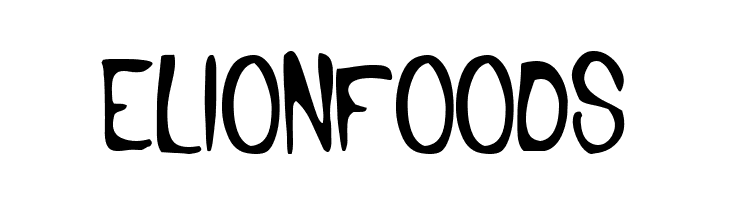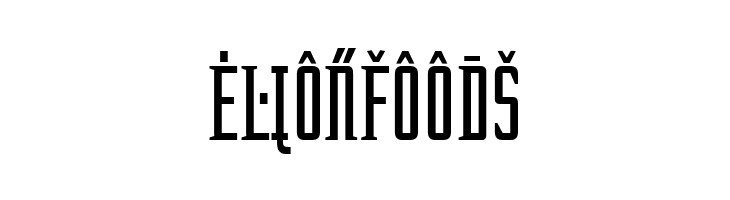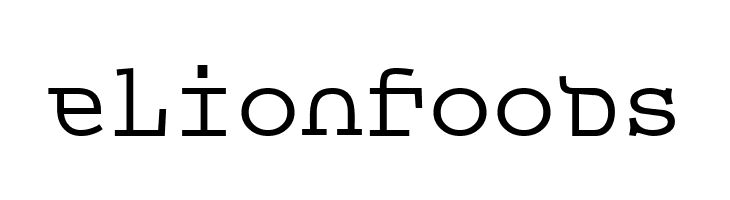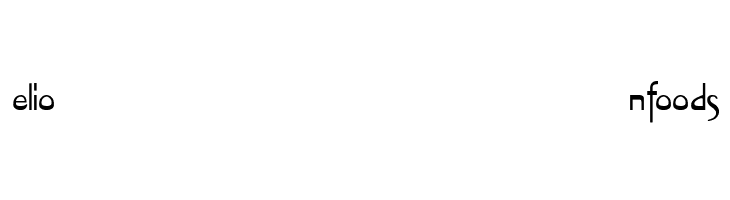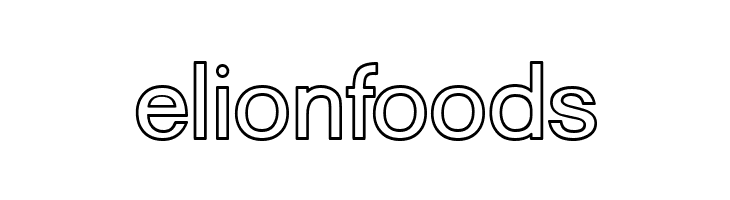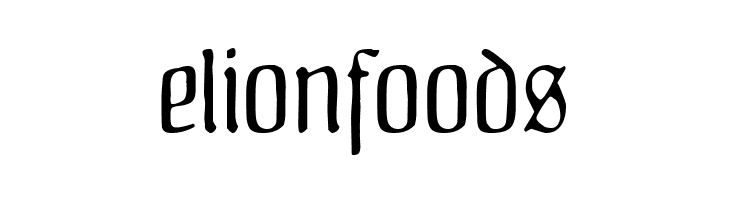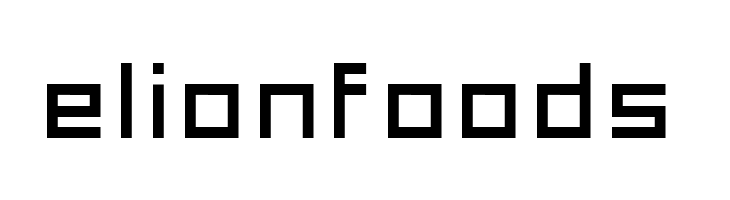
A bold, geometric font with a modern, industrial aesthetic.
A bold, geometric font with art deco influences and angular letterforms.
A geometric, angular font with consistent stroke width and octagonal shapes.
A playful, whimsical font with hand and foot elements in each character.
A bold outlined sans-serif font with a modern and clean design.
A Gothic-inspired font with ornate uppercase and streamlined lowercase letters.